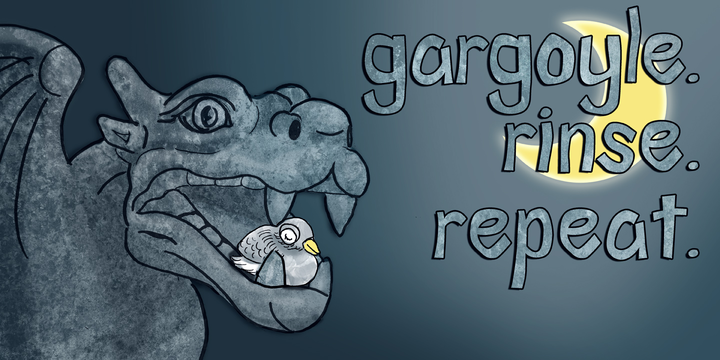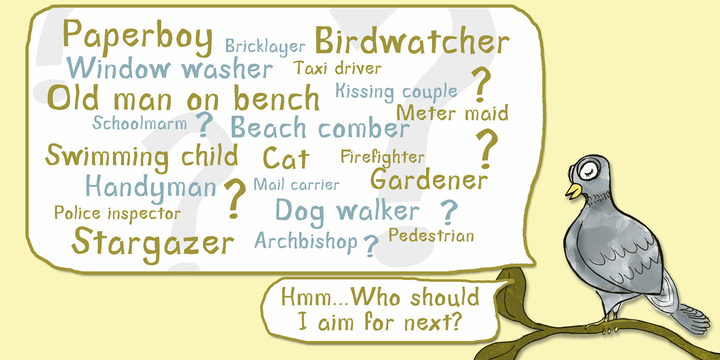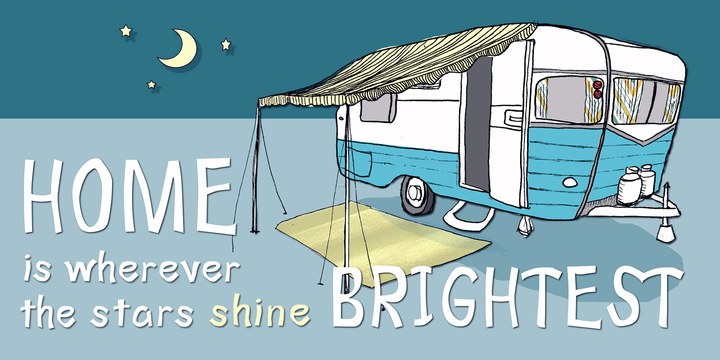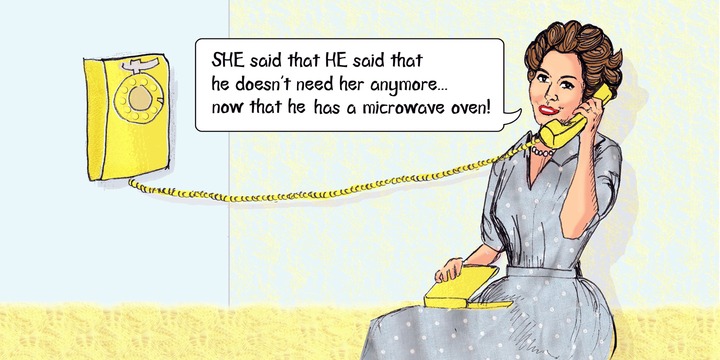
About Little Pigeon Font
Little Pigeon whimsical to the max!
Just like its name suggests this font is taking baby steps out into the world.
It was a curious attempt at finding handmade, spontaneous letter-forms.
Perfectly sets alongside imagery for children’s books, prints, greeting cards and more!
Just like its name suggests this font is taking baby steps out into the world.
It was a curious attempt at finding handmade, spontaneous letter-forms.
Perfectly sets alongside imagery for children’s books, prints, greeting cards and more!